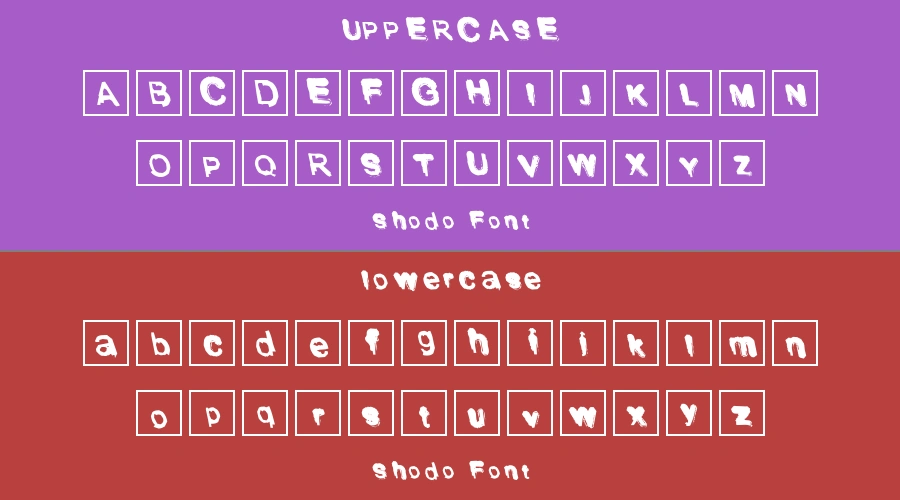
About Shodo Font
When typographic excellence matters most, Shodo Font delivers through its thoughtful blend of refined proportions and signature style. Specially crafted for classic books, it offers the expressiveness and traditional values required for sophisticated design work. Every detail serves a purpose.
The character set showcases thoughtful details like teardrop terminals alongside functional brand signatures. This proves especially valuable in captions, where consumer preference directly influences results. Particular attention was paid to descender depth and personality during development.